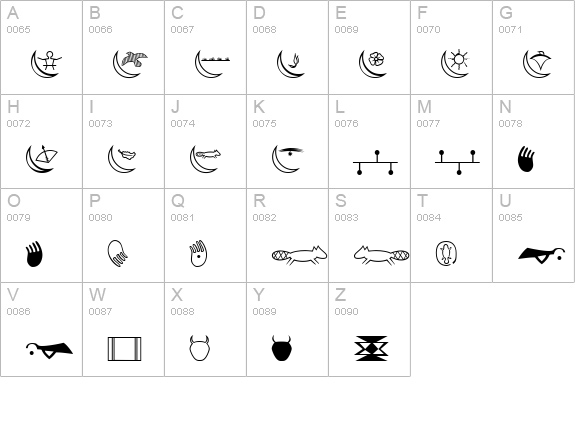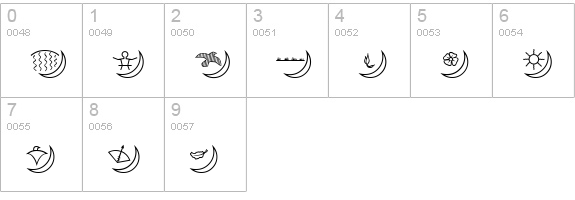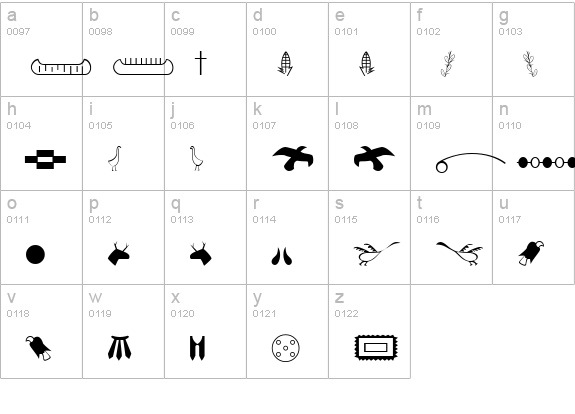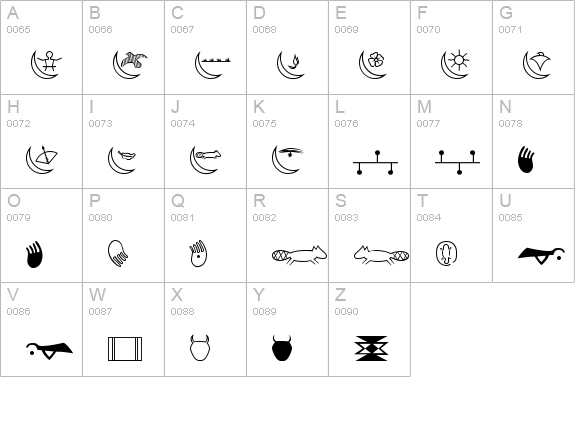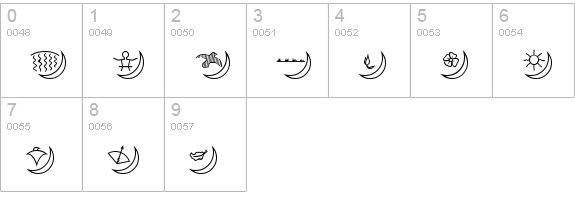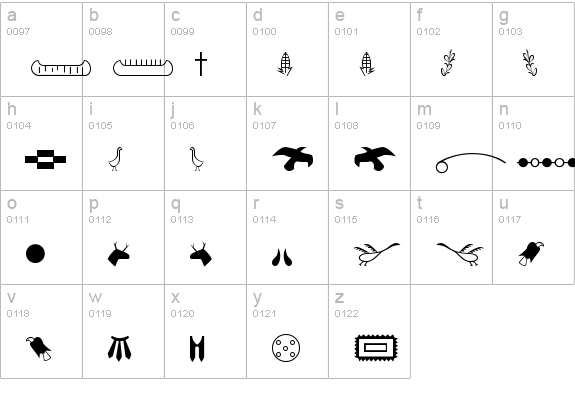
AmericanIndian Font Details
The AmericanIndian font captures the essence of Native American artistry and culture with its intricate designs and bold strokes. This unique font exudes a sense of history and tradition, making it perfect for projects that require a touch of authenticity and heritage. Its elegant curves and striking details truly make it stand out among other fonts. Best of all, the AmericanIndian font is available for free download at FontsMarket.com. Whether you're working on a project that celebrates indigenous cultures or simply want to add a touch of flair to your designs, this font is sure to make a statement. Download it today and unleash your creativity with this beautiful and expressive typeface.